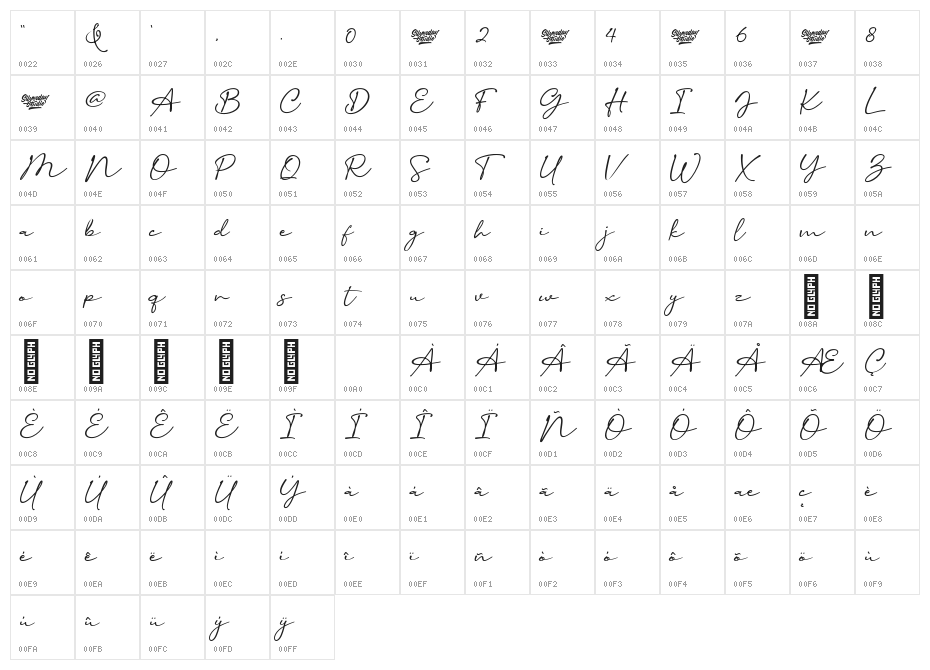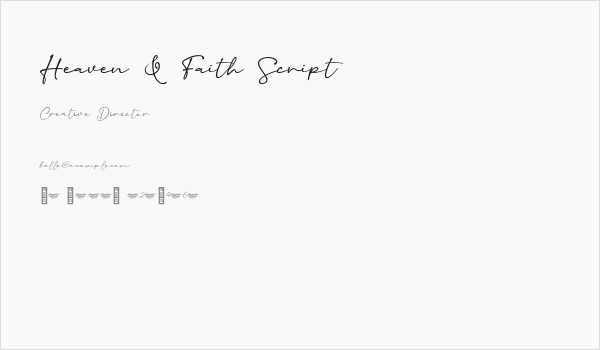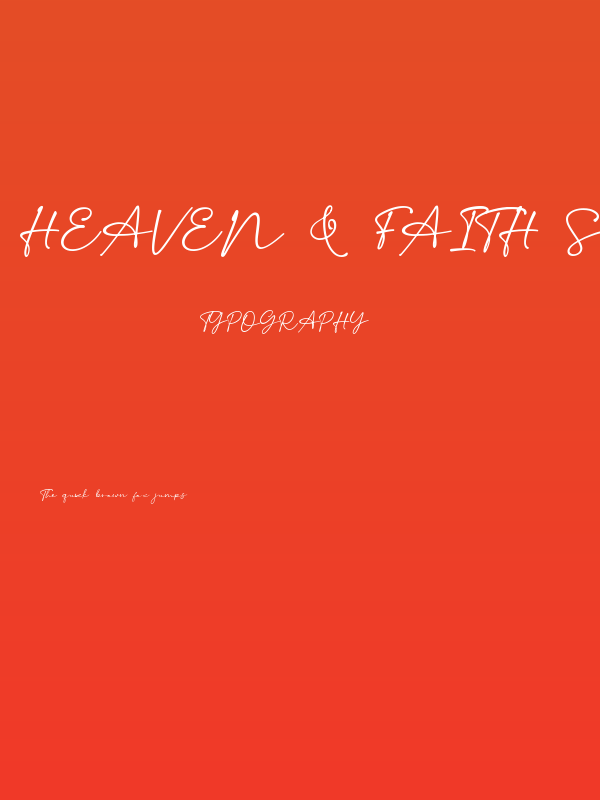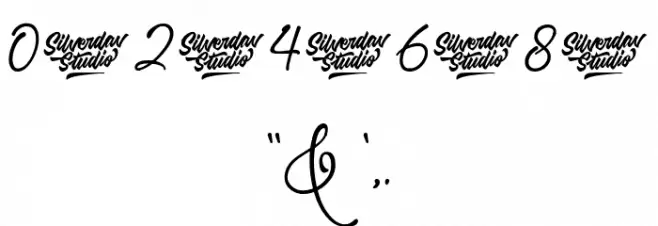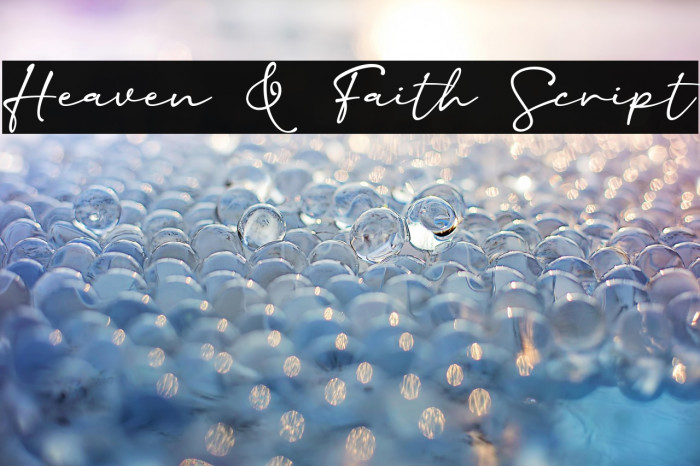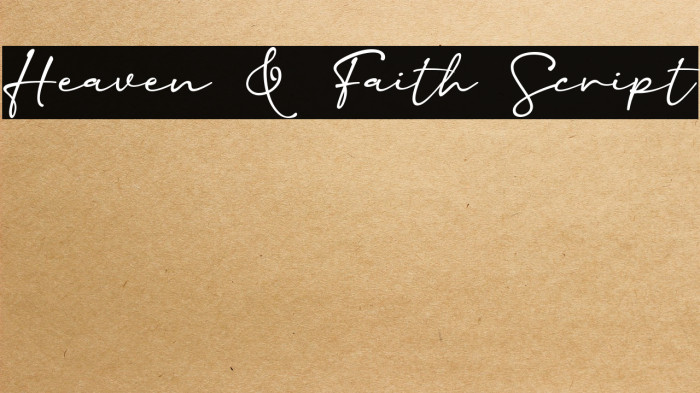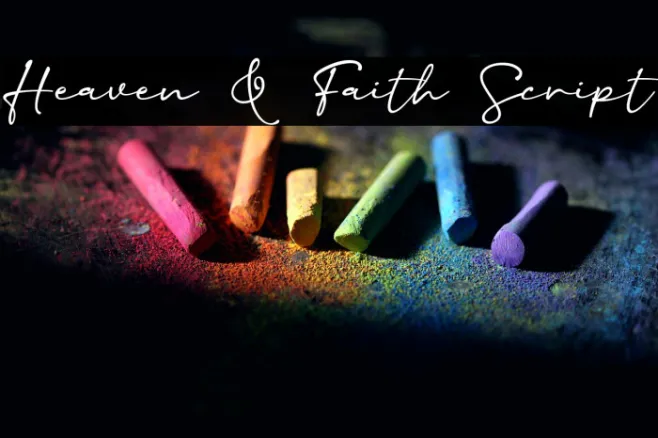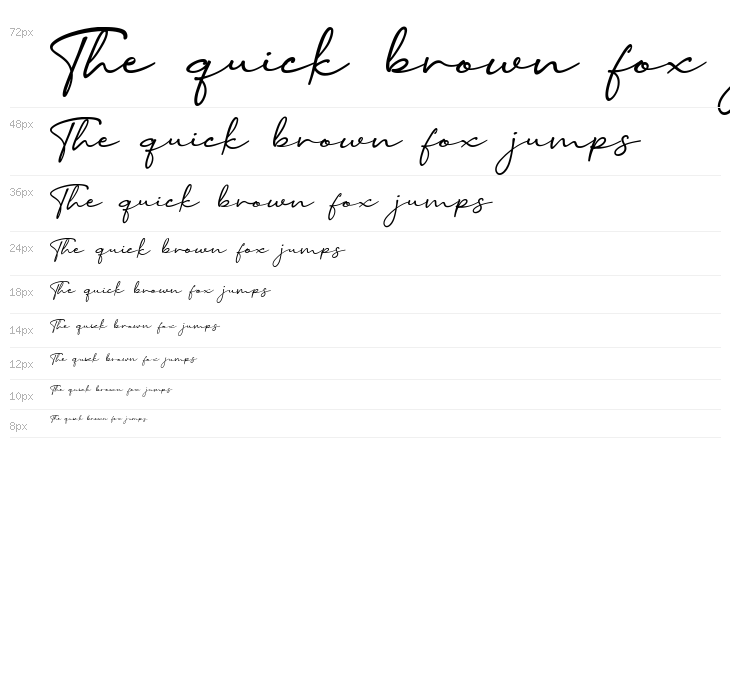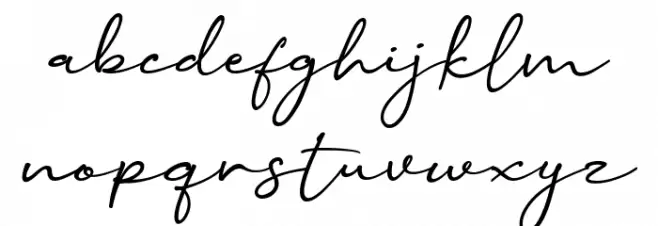
Heaven & Faith Script Font
Heaven & Faith Script Description
This elegant script font features flowing, cursive letterforms that exude a sense of grace and sophistication. The uppercase letters are characterized by sweeping curves and loops, creating a sense of movement and fluidity. The lowercase letters maintain a consistent style, with gentle connections between characters that enhance readability while preserving the font's decorative nature. The numbers and special characters are designed to complement the overall aesthetic, with similar curves and flourishes. This font is perfect for projects that require a touch of elegance and personal flair, such as wedding invitations, branding, and high-end product packaging.